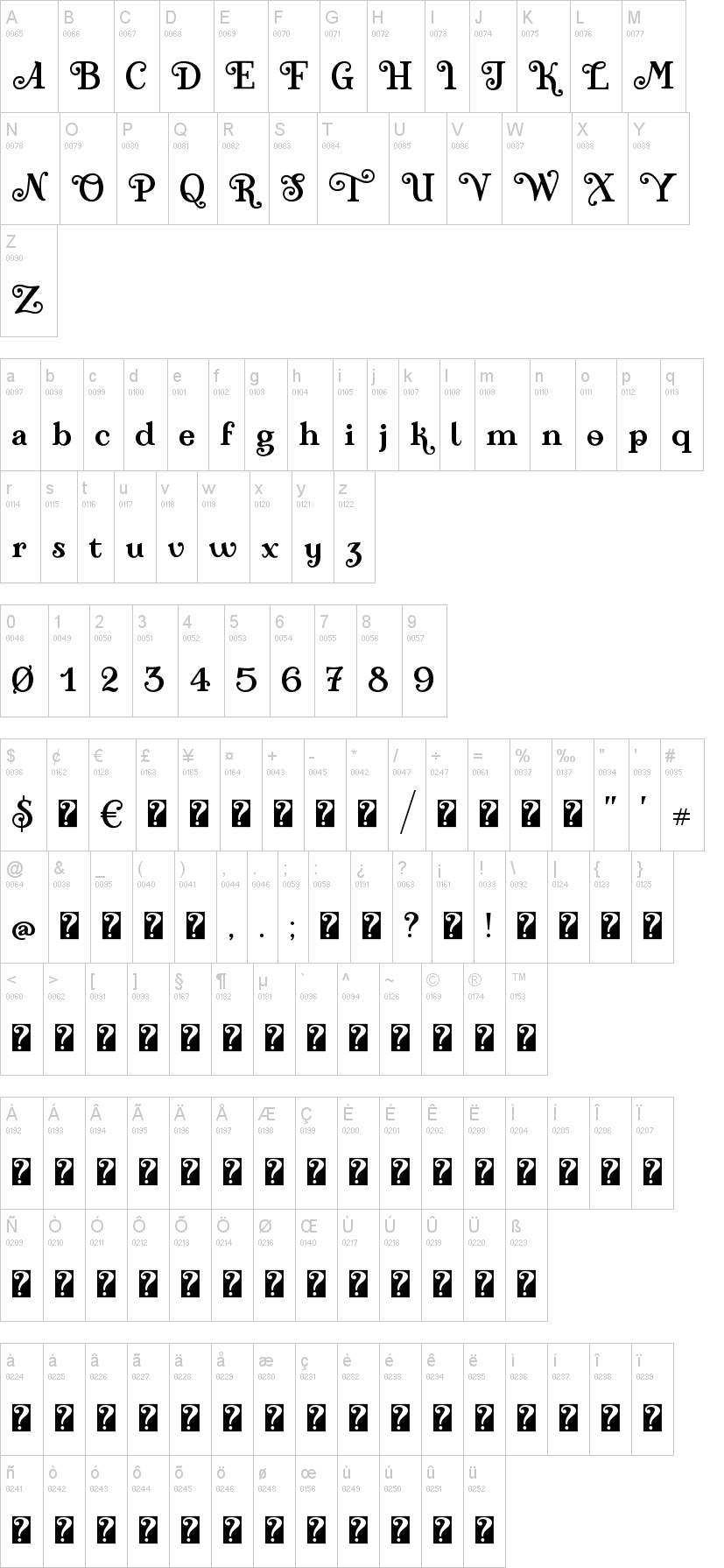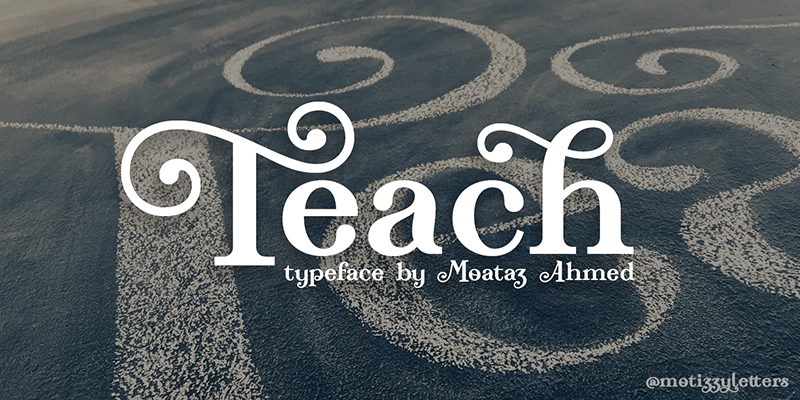
Note of the authorTEACH is a fantasy movie style serif font created and designed by Moataz Ahmed.
This is the demo version of this font, full version contains all latin language accented characters for Western and Eastern European languages. And a lot of stylistic and contextual alternates and ligatures for connecting pairs.